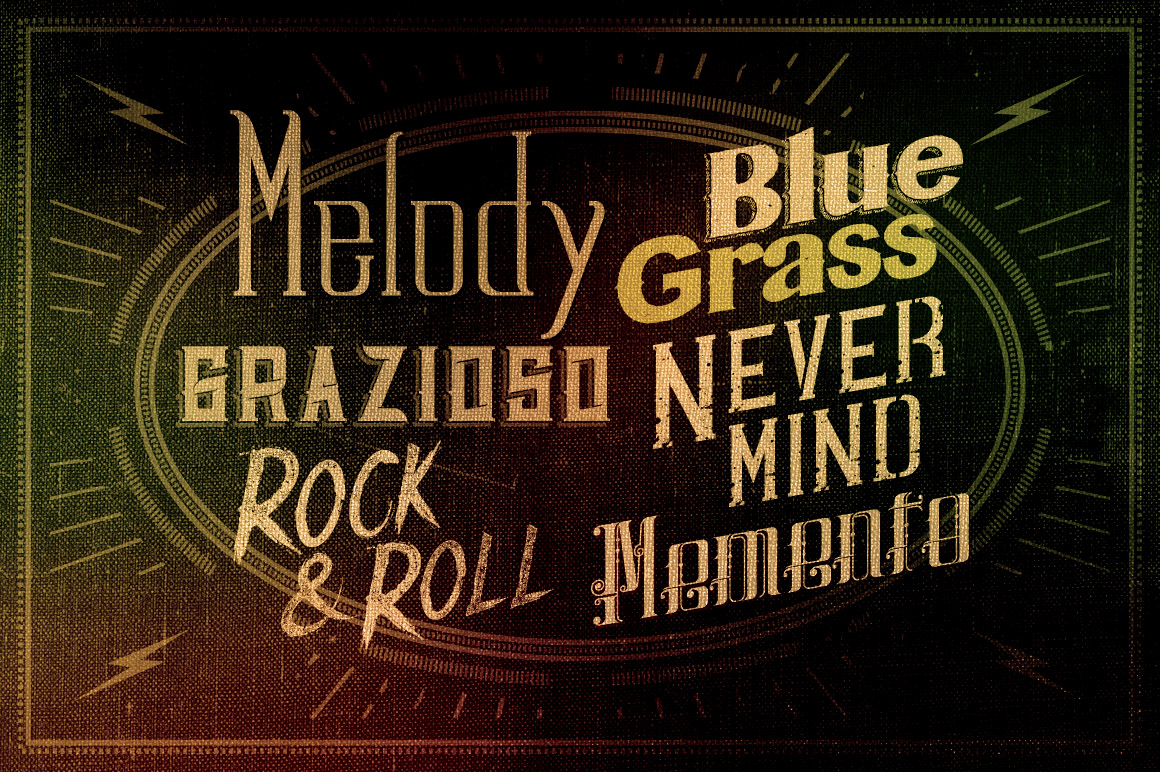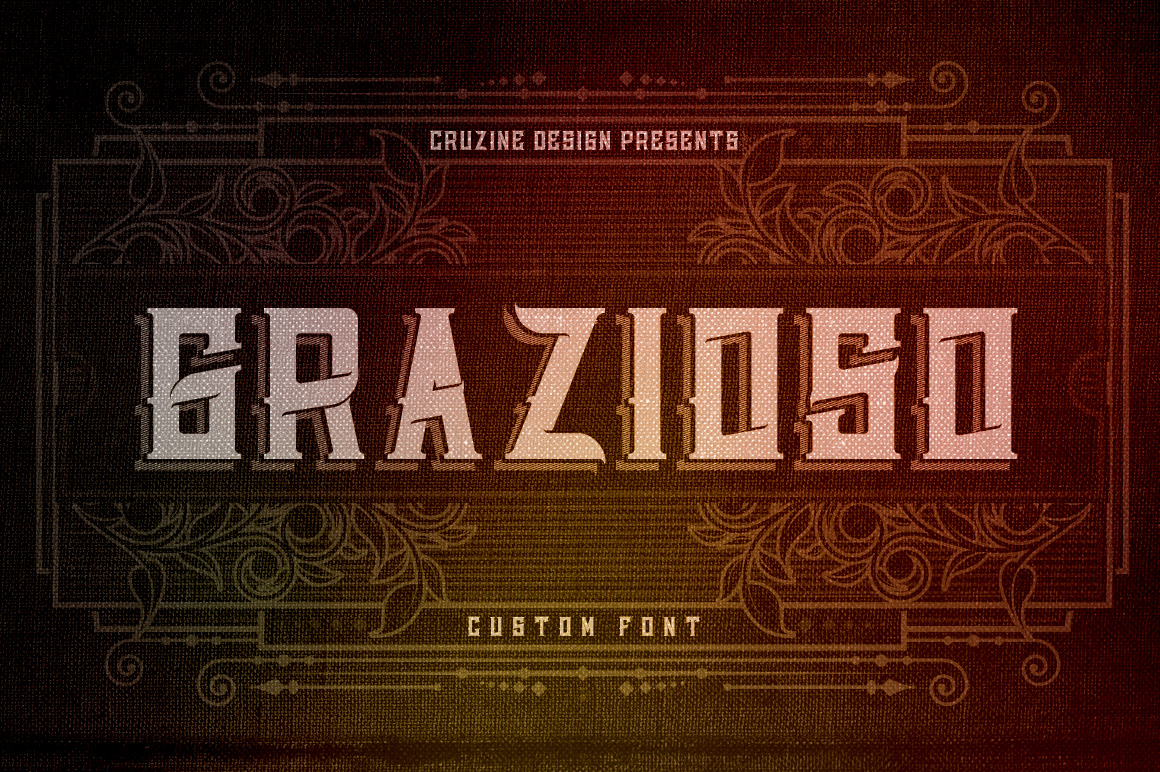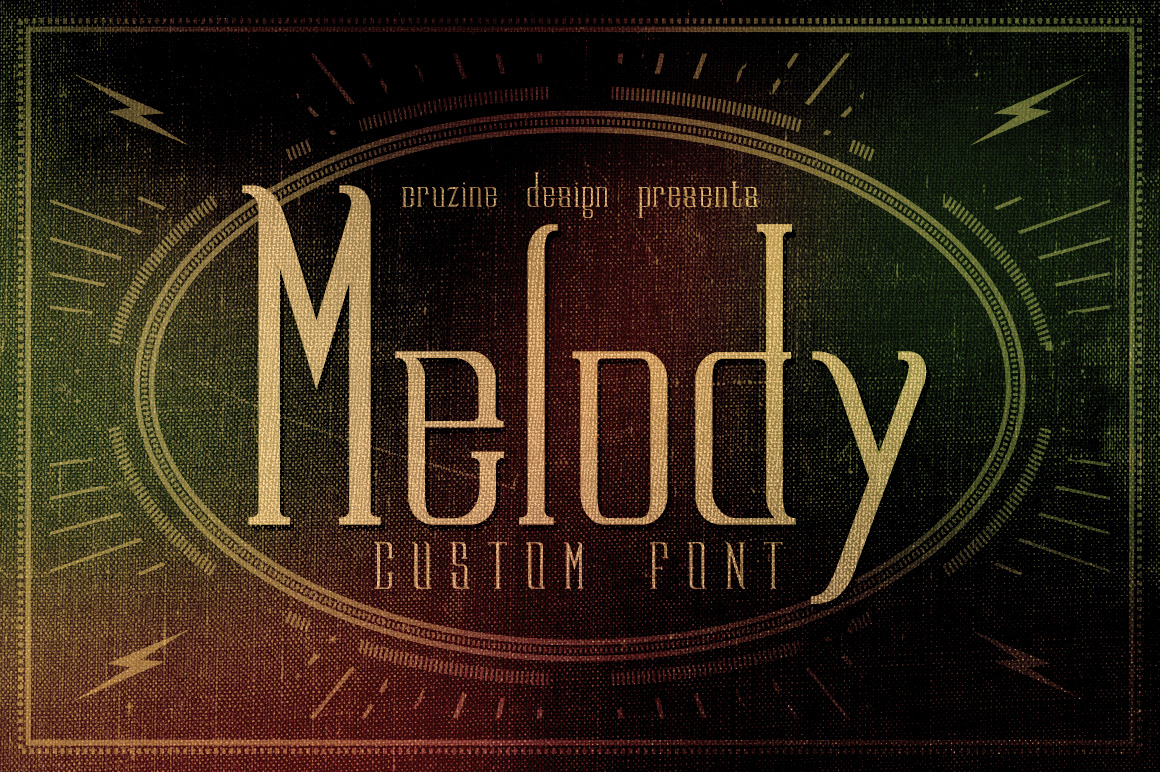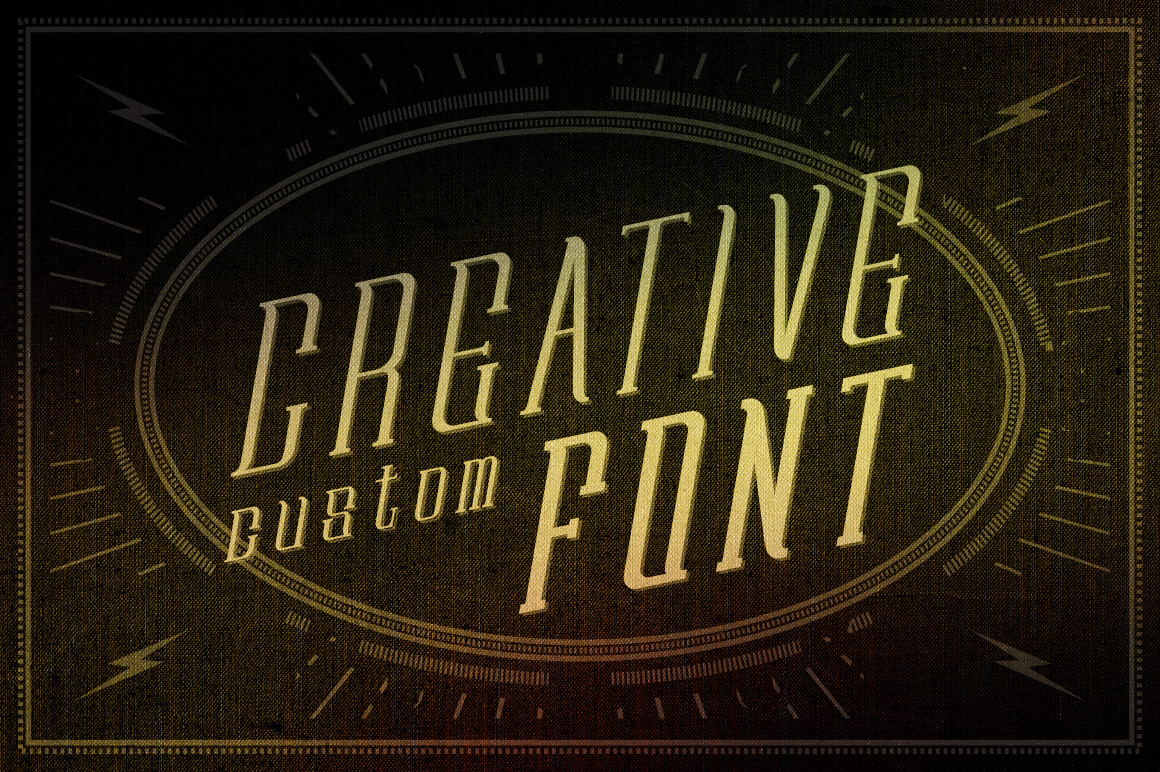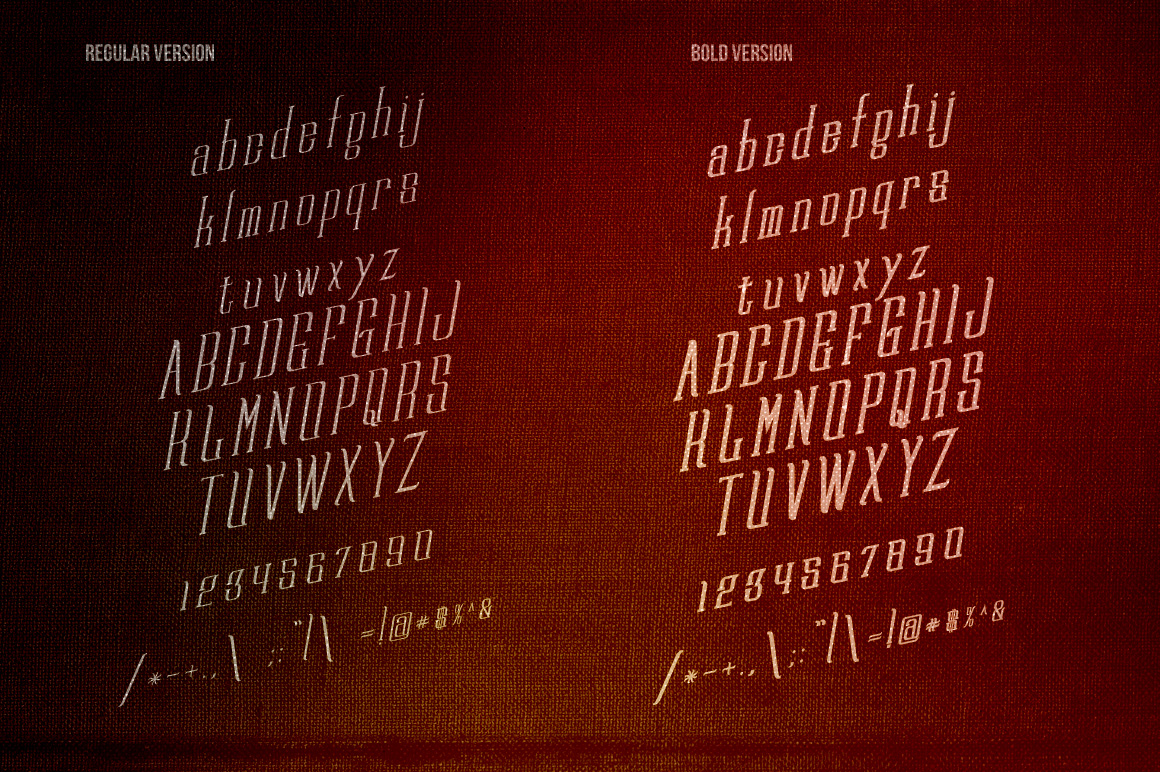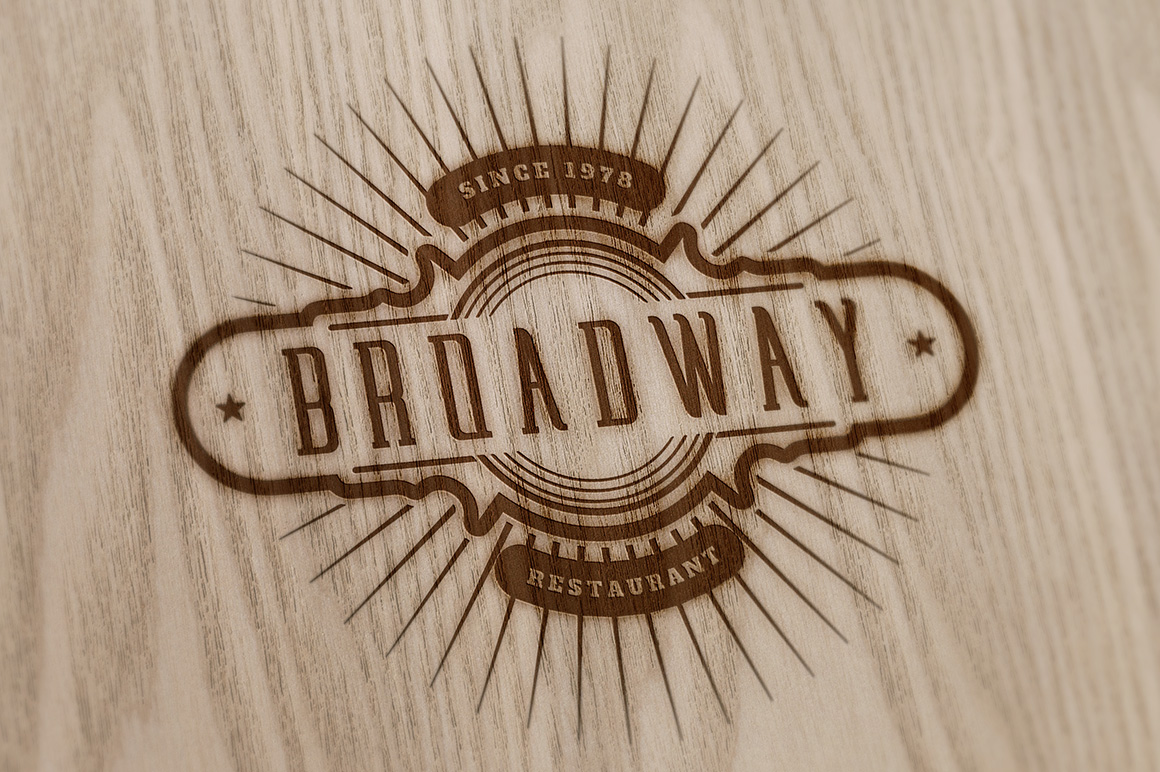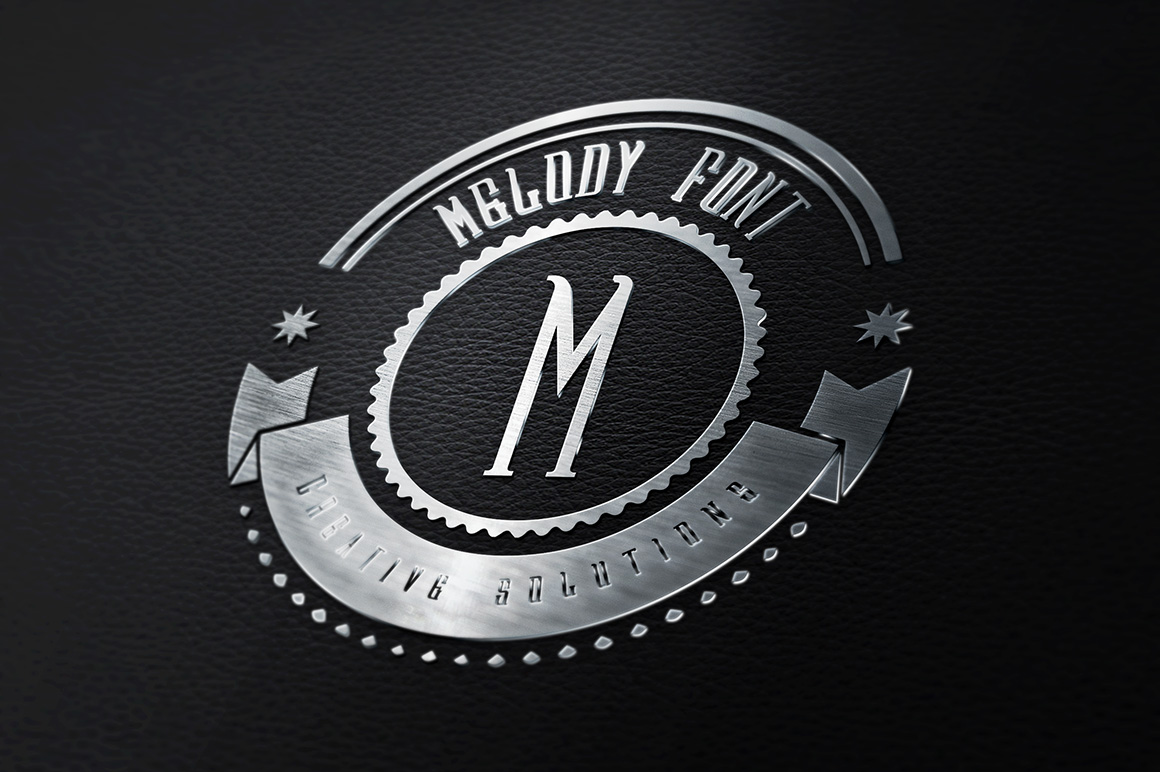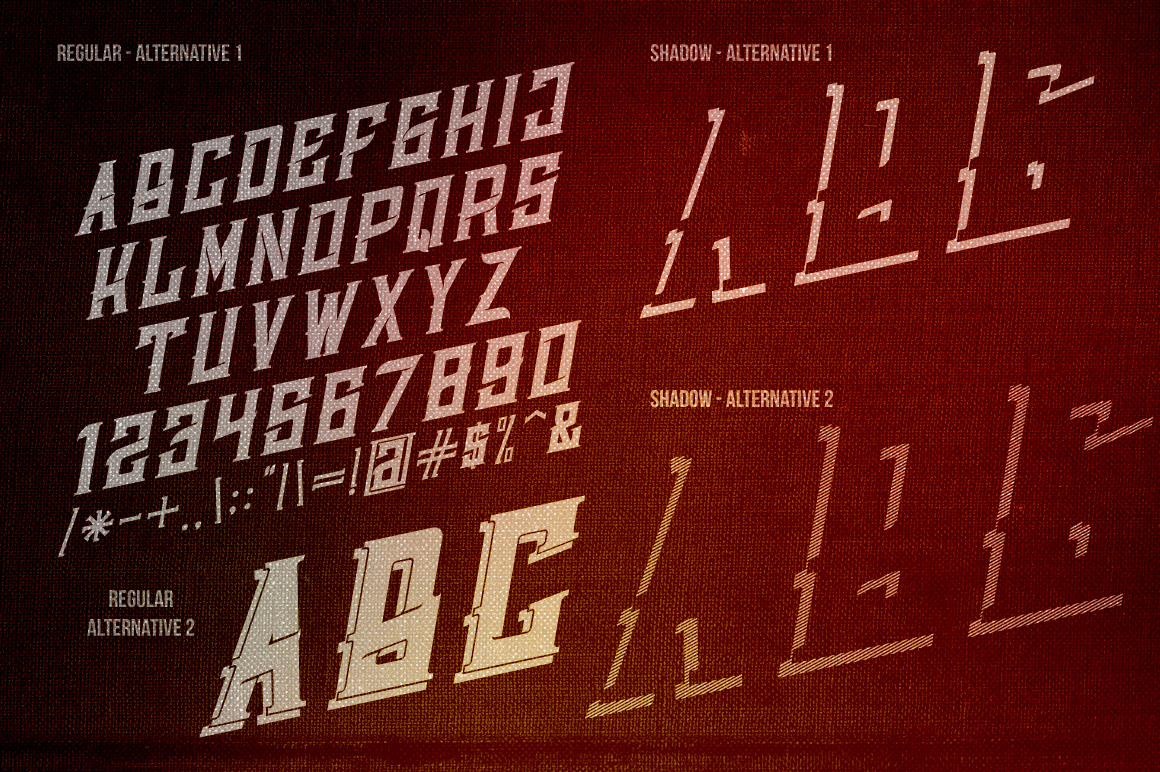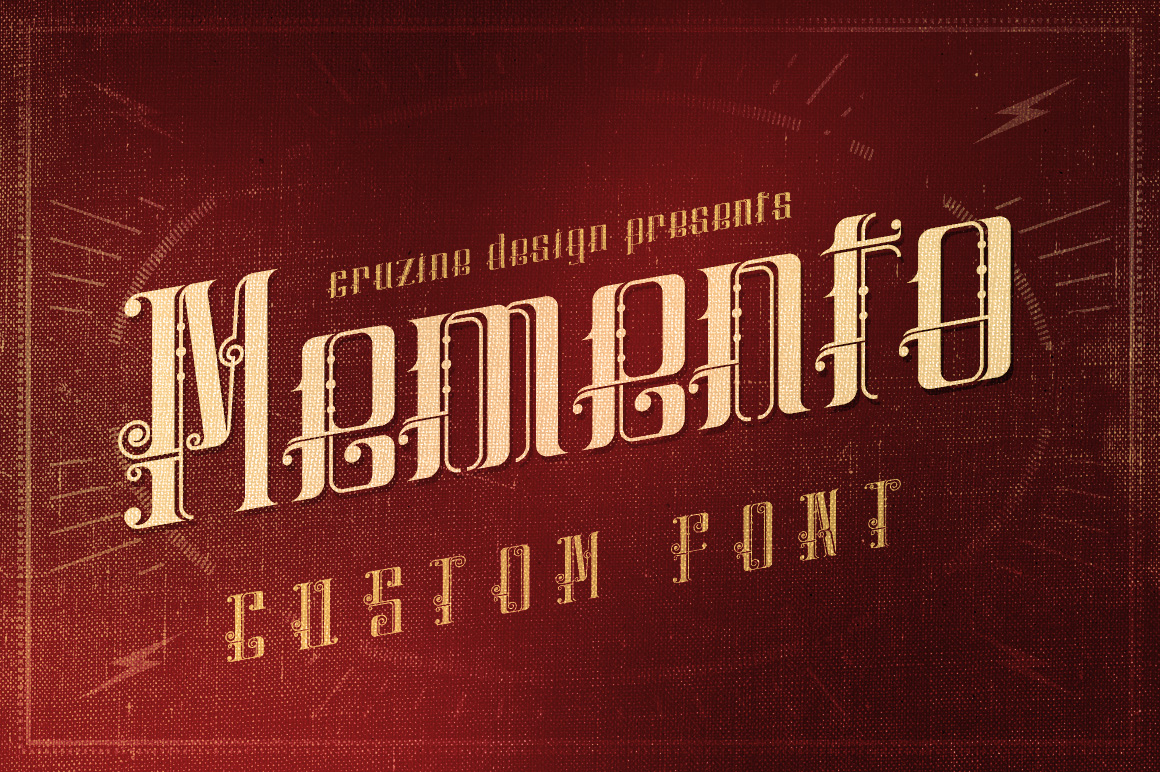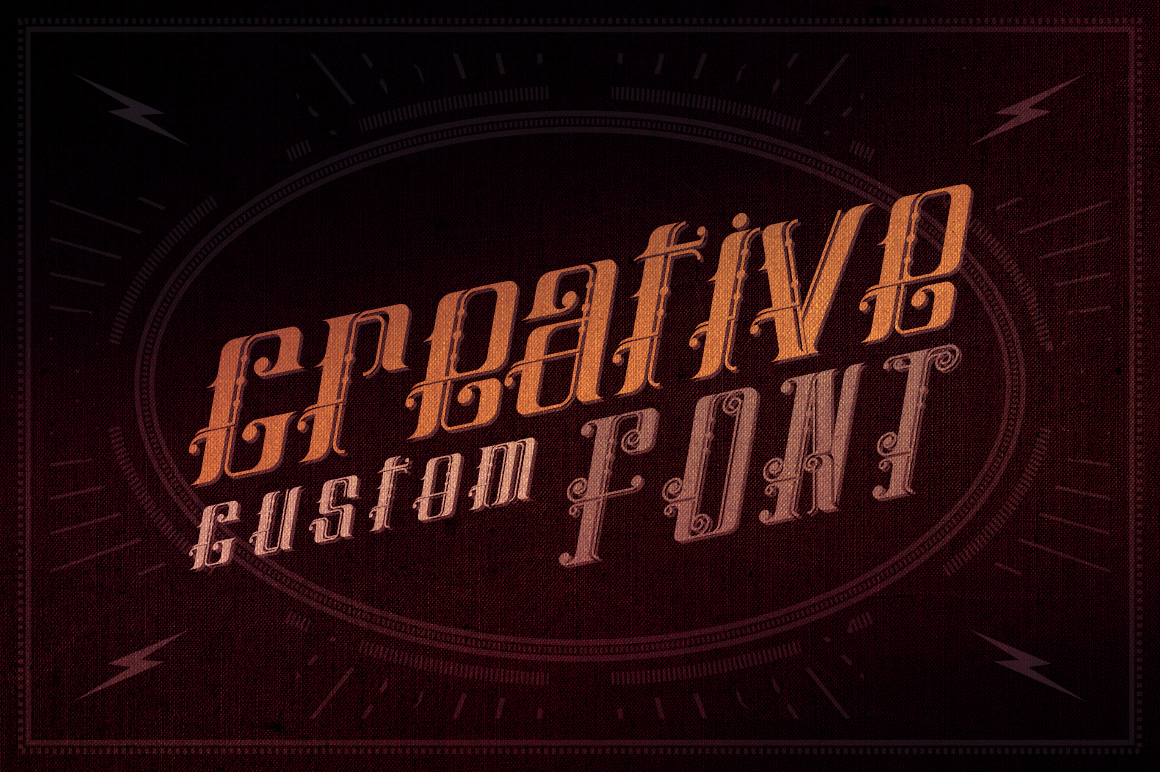
6 Creative & Unique Custom Fonts
Typography and the font-faces you choose has a huge impact on multiple aspects of your final design. So maybe it’s time to add something new and fresh to your font toolbox ;). Specialy retro & vintage style custom fonts are very popular these days.
1. Nevermind Font
Grunge style custom font. Small and Caps letters.
2. Rocknroll Font
Grunge style custom font in 3 versions – subtle, medium and hard grunge.
3. Bluegrass Font
Grunge style custom font in 4 versions – regular, with shadow, outline, only shadow.
4. Memento Font
Retro/Vintage/Classic and ornamental style custom font.
5. Melody Font
Retro/Vintage/Classic style custom font with regular and bold version.
6. Grazioso Font
Retro/Vintage/Classic style custom font with regular and shadow version – 2 shadow alternatives.